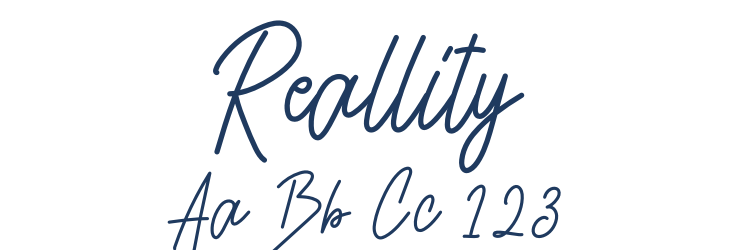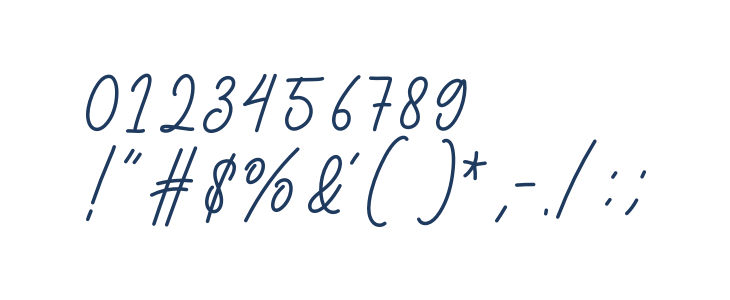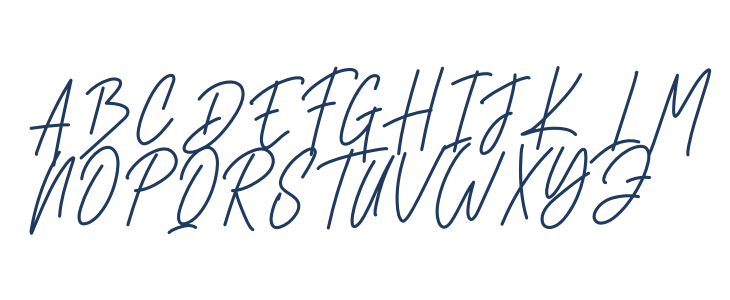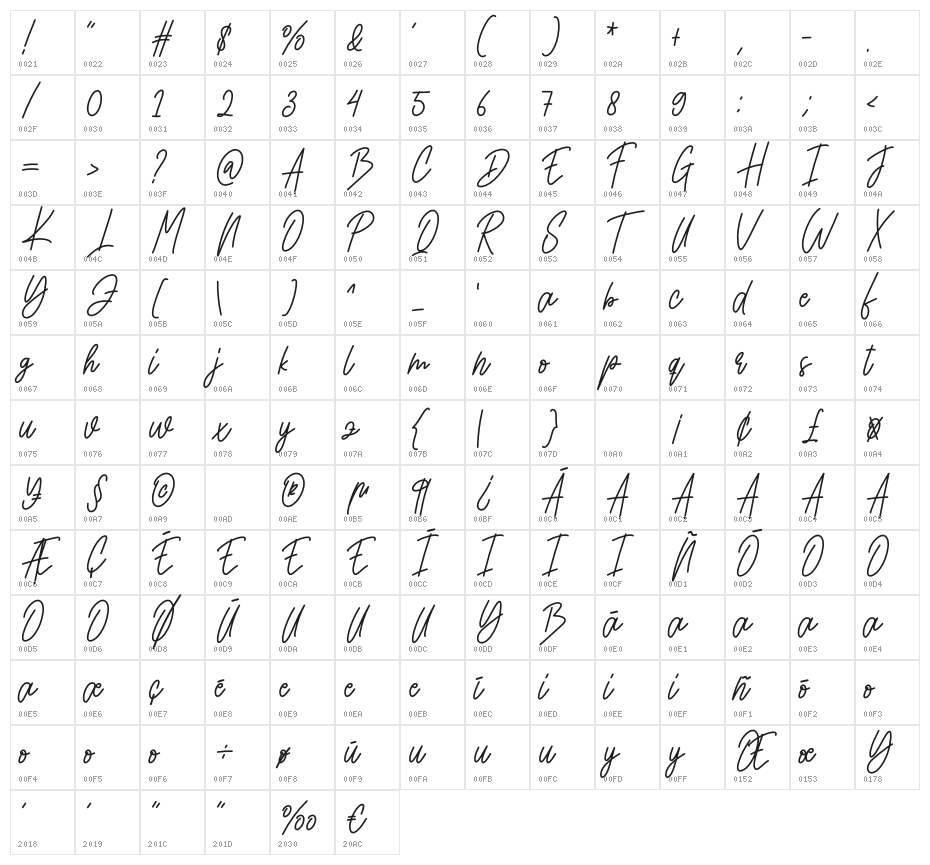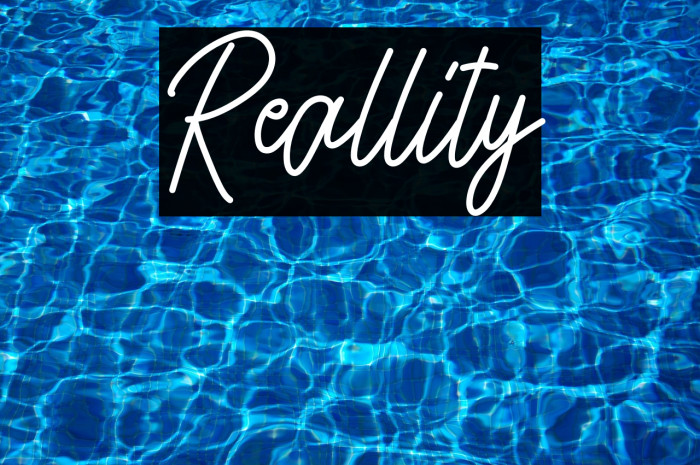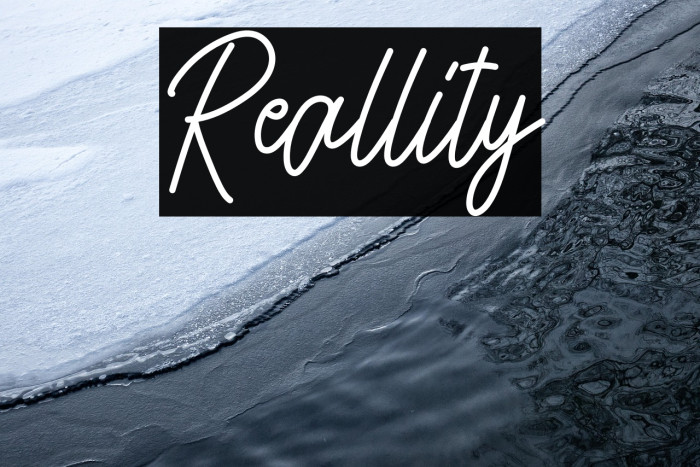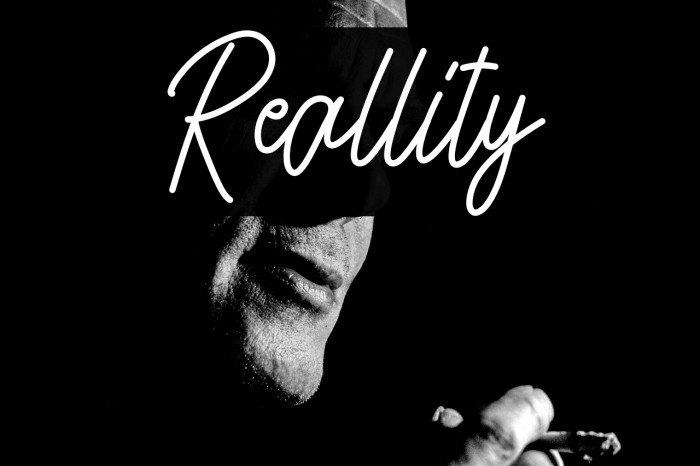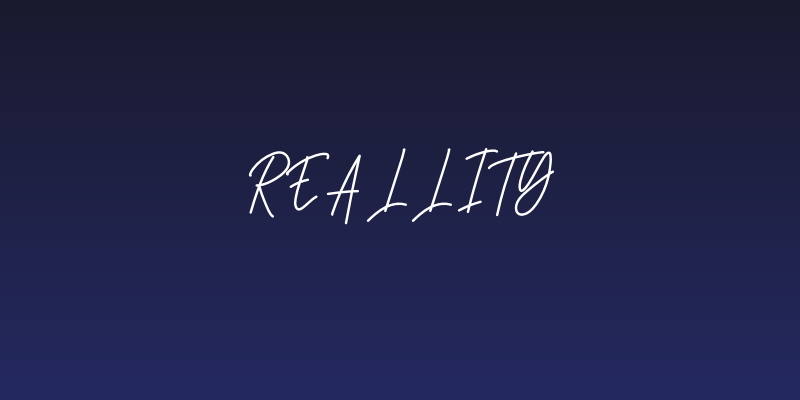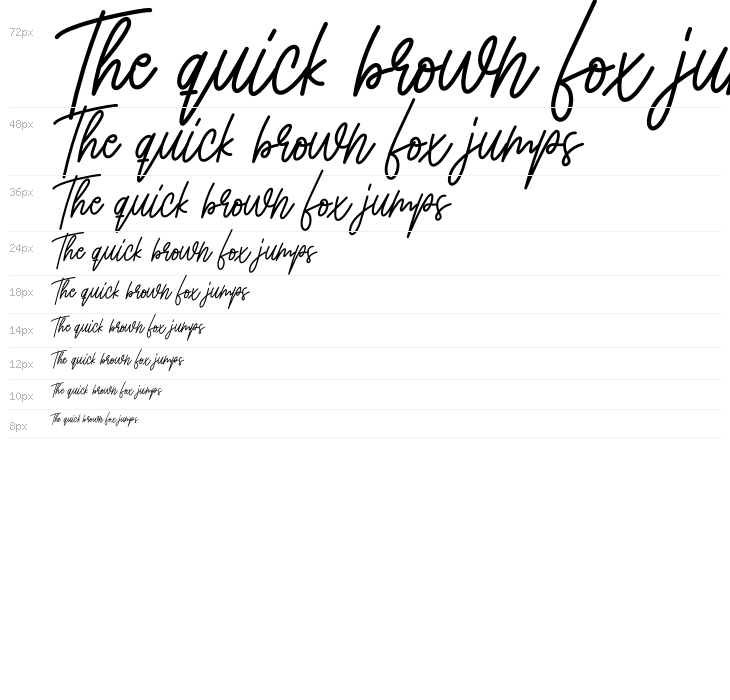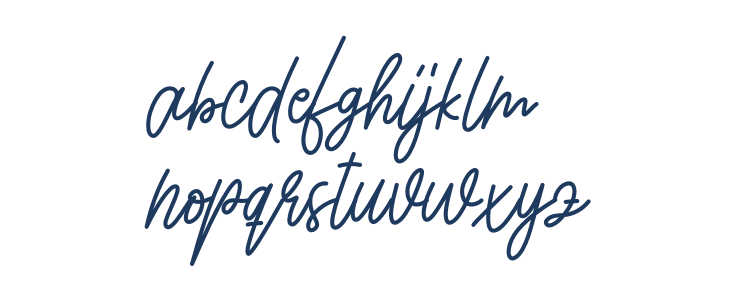
Reallity Font
Reallity Description
A casual, handwritten script font with a natural, flowing style. The characters are slightly slanted, featuring variable stroke thickness and a playful, informal appearance. Both uppercase and lowercase letters are connected in a cursive manner, and the numerals and punctuation maintain the handwritten aesthetic.
| Overall Style | Casual, Decorative, Handwritten |
| Use Case | Logos, Headlines, Invitations, Social media posts |
| Proposed Projects | Greeting cards, personal branding, invitations, quotes, social media graphics. |